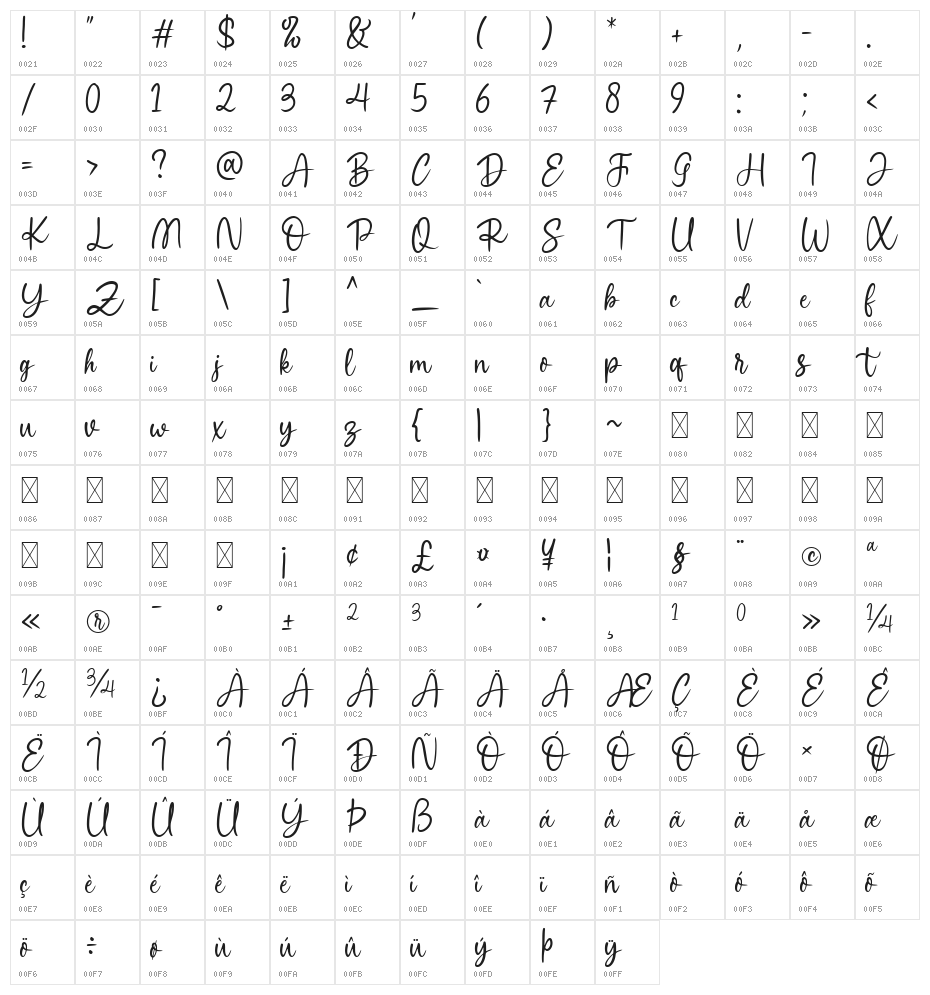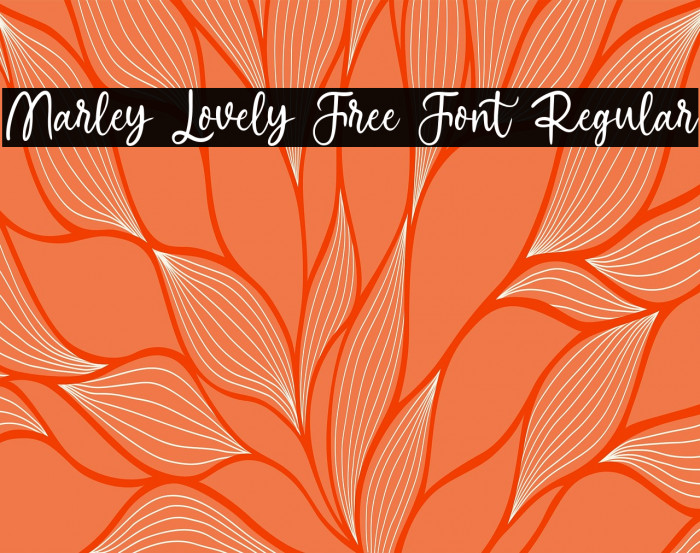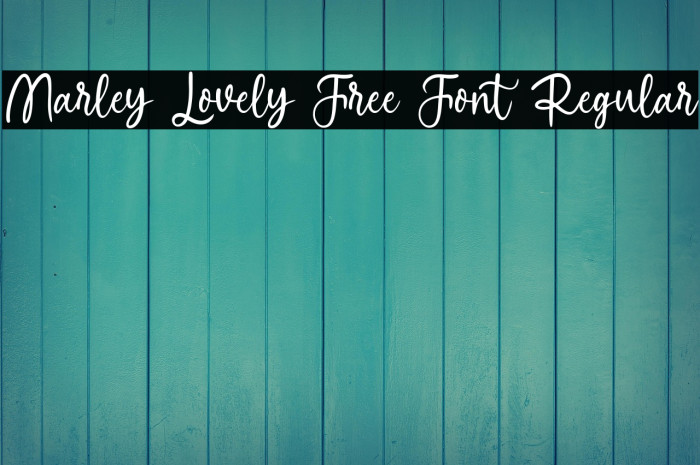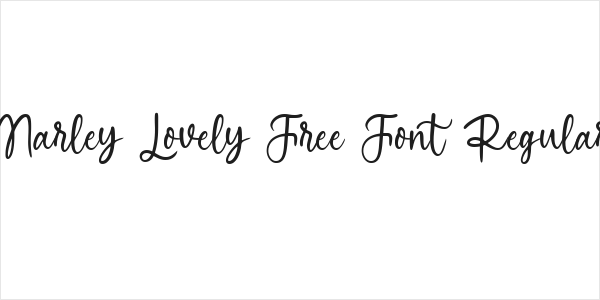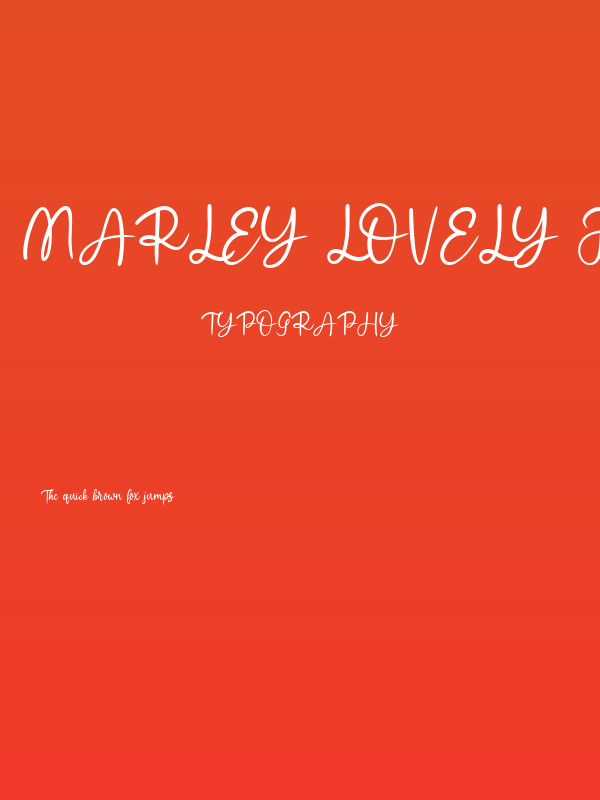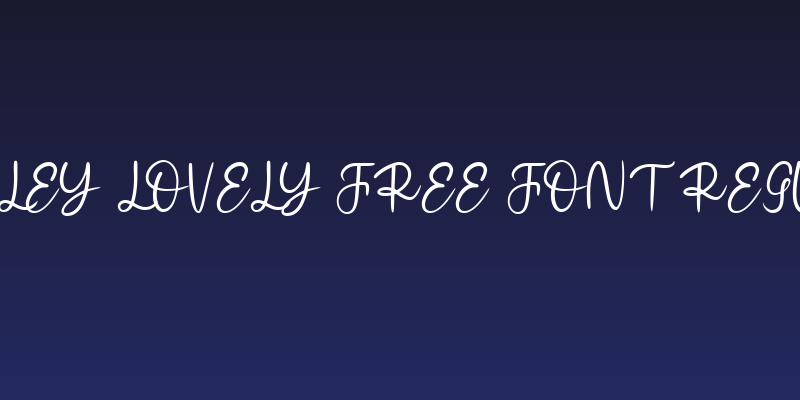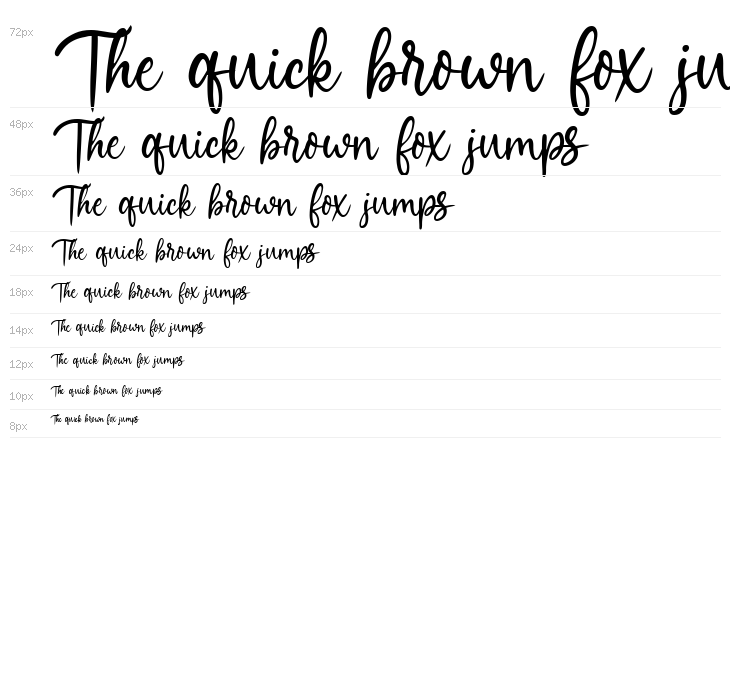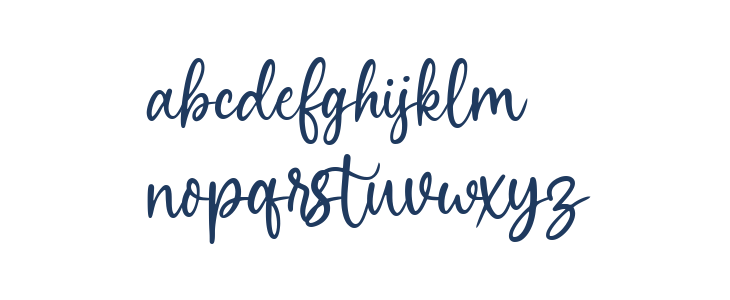
This font exudes a playful and elegant script style, characterized by its flowing, cursive letters that maintain a consistent rhythm throughout. The uppercase letters are gracefully connected, while the lowercase letters exhibit a charming looped design, adding a whimsical touch. The numerals are bold and rounded, complementing the overall aesthetic. Special characters are crafted with the same fluidity, ensuring a cohesive look. This font is perfect for projects that require a personal, handwritten feel, such as invitations, greeting cards, or branding materials.
| Proposed Projects | Ideal for invitations, greeting cards, branding, and personal projects. |